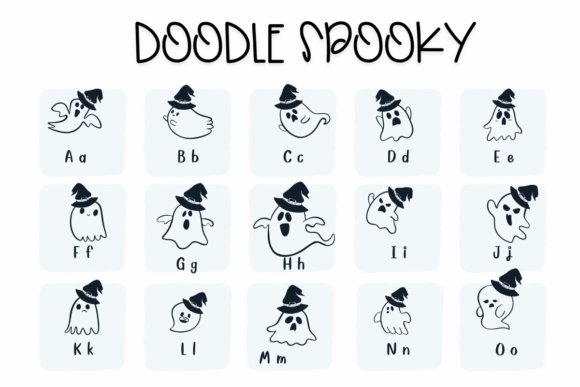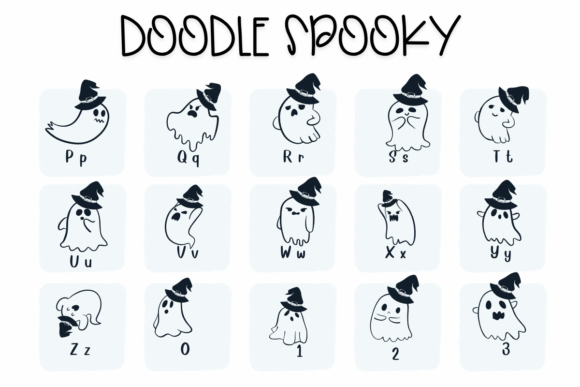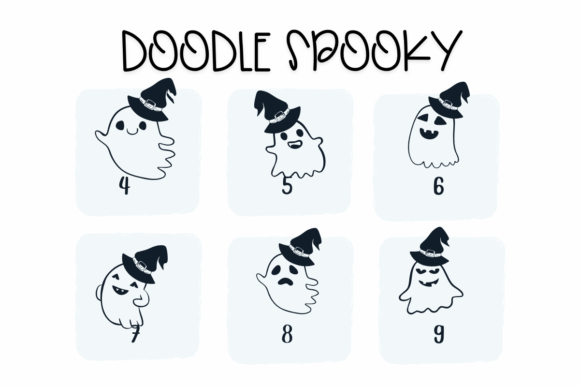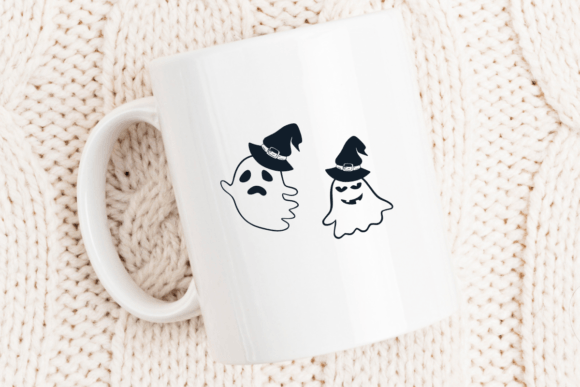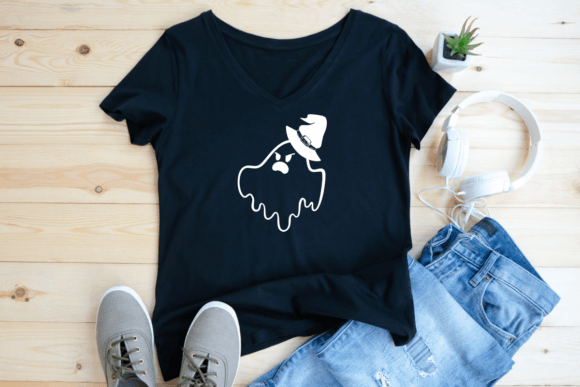
The Spooky-Chic Doodle Spooky Font: A Designer’s Delight
With its unique sketch style and dingbats theme, Doodle Spooky instantly elevated my design game. I used it to create custom illustrations, icons, and even a few spooky-themed phrases to add a personal touch to the invitation. The result was a beautiful, one-of-a-kind design that exceeded my client’s expectations. In this article, I’ll share my experience with the Doodle Spooky font, its features, and how to make the most of it in your creative projects.
- Unique and quirky sketch style that’s perfect for adding a personal touch to your designs ✅
- Dingbats theme with a wide range of icons and symbols to choose from 🎃
- Easy to use and pairs well with a variety of other fonts and design elements 📚
- Perfect for creative projects like wedding invitations, DIY crafts, decorations, logos, and more 🎉
A Few Quirks to Keep in Mind 🤔
- Some characters may not work well in all contexts, so be sure to test them out ⚠️
The Story Behind Doodle Spooky
According to the font’s creators, Doodle Spooky was inspired by the spooky and kooky world of Halloween. They wanted to create a font that captured the playful and whimsical spirit of the holiday, while also being versatile enough to use in a variety of design contexts. The result is a font that’s both spooky and charming, perfect for adding a touch of personality to your designs.
| Font Name | Doodle Spooky Font |
| Author | Sirinart |
Q: What type of projects is Doodle Spooky best suited for?
A: Doodle Spooky is perfect for creative projects like wedding invitations, DIY crafts, decorations, logos, and more. Its unique sketch style and dingbats theme make it a versatile font that can add a personal touch to a wide range of designs.
Q: Is Doodle Spooky a difficult font to use?
A: Not at all! Doodle Spooky is easy to use and pairs well with a variety of other fonts and design elements. With a little practice, you’ll be creating spooky-chic designs in no time.